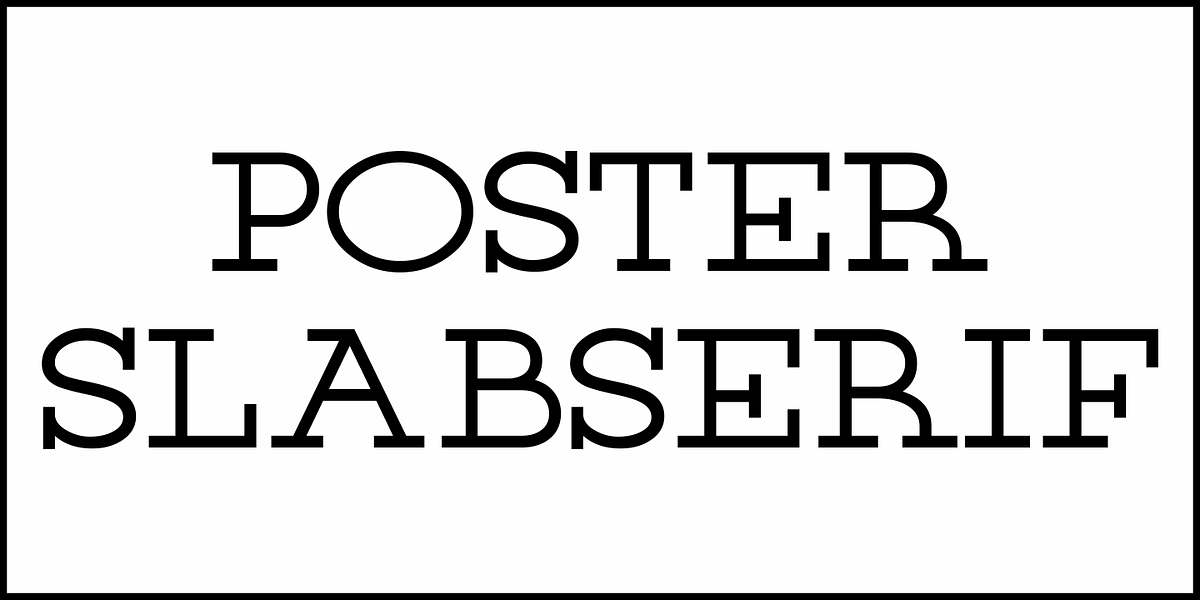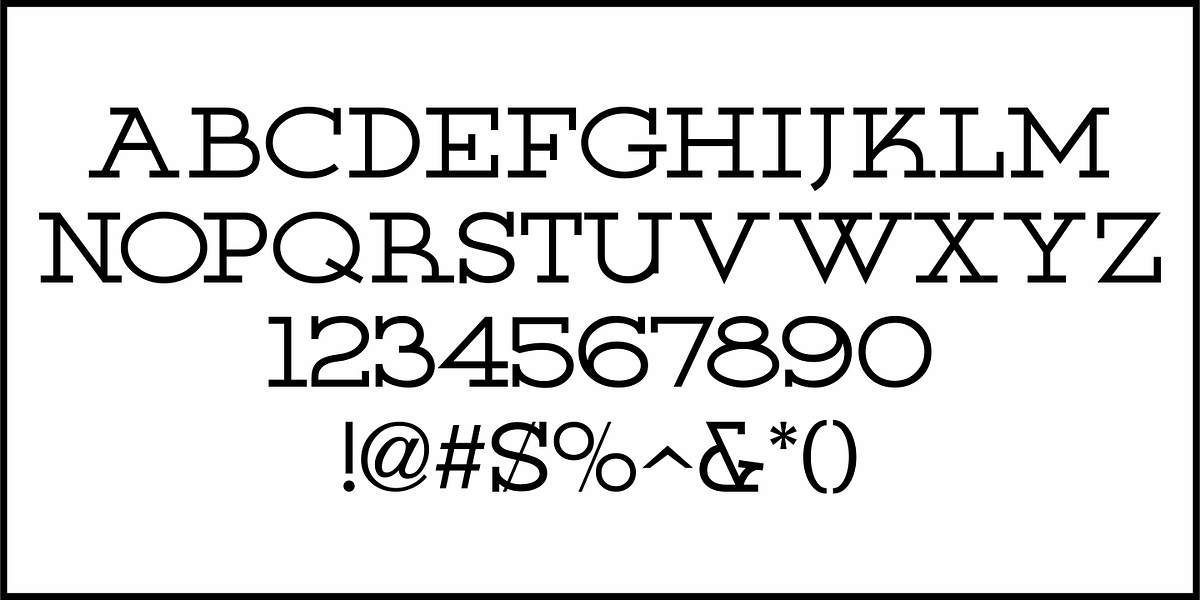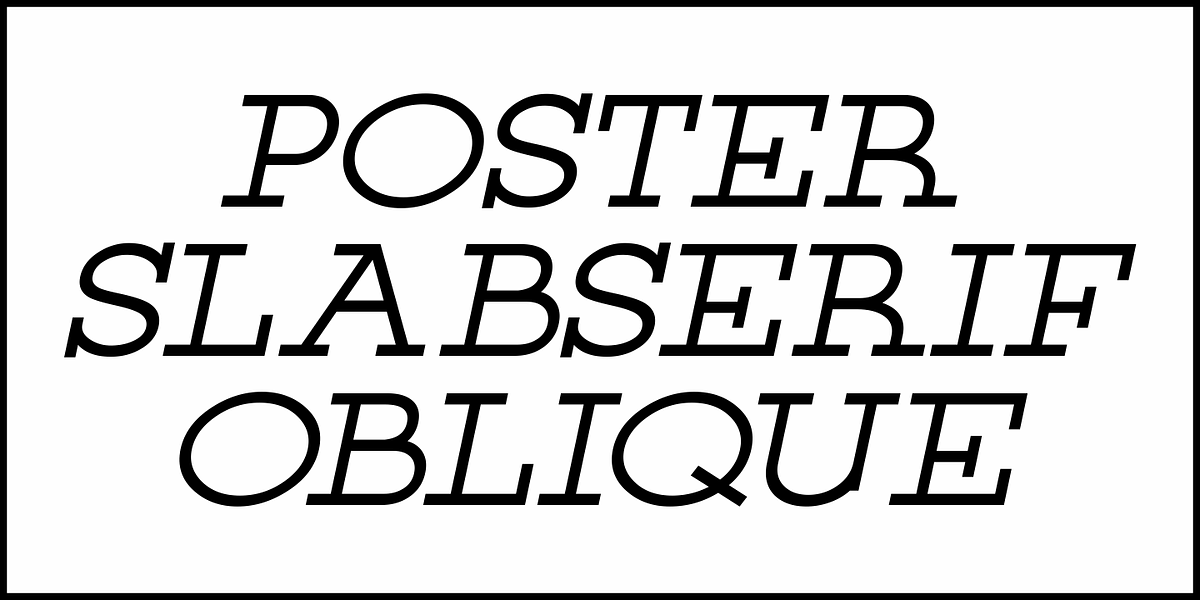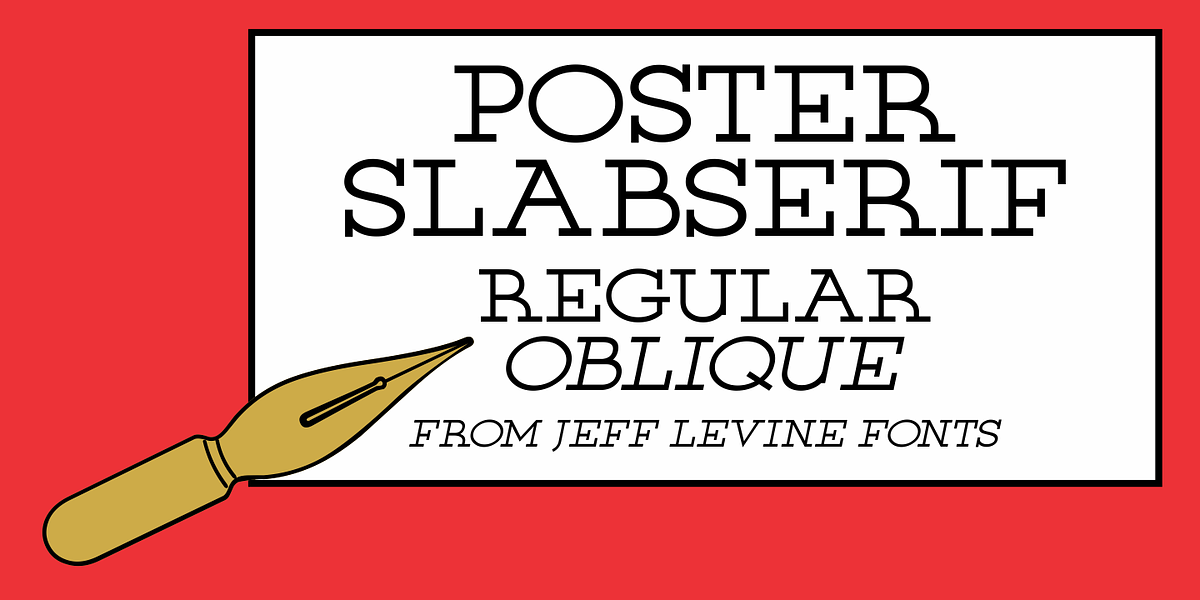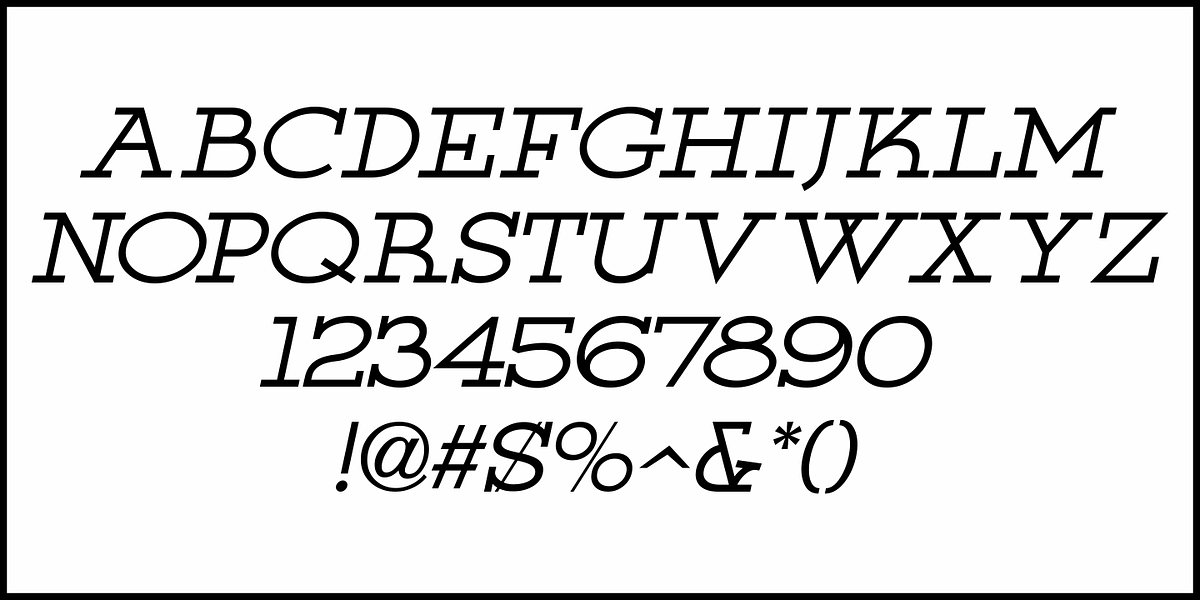
Poster Slabserif JNL
Based on one of the many hand lettered typefaces found with in the 1960 edition of Sam Welo’s “Studio Handbook for Artists and Advertisers”, Poster Slabserif JNL is available in both regular and oblique versions.